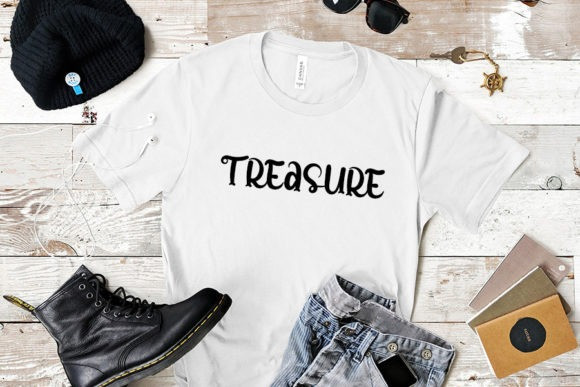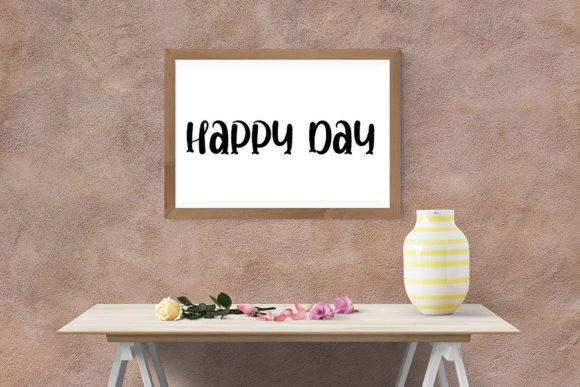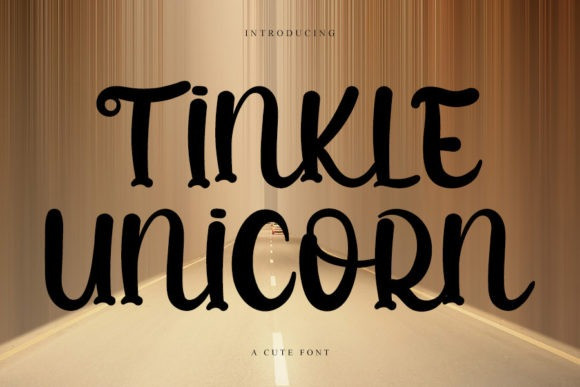
Tinkle Unicorn Font
Tinkle Unicorn Cute Font is a stylish serif font with a contemporary atmosphere and impeccable form, inspired by a timeless classic calligraphy. Not too thin and not too thick, balanced and varied, this font was designed to enhance the beauty of your projects.